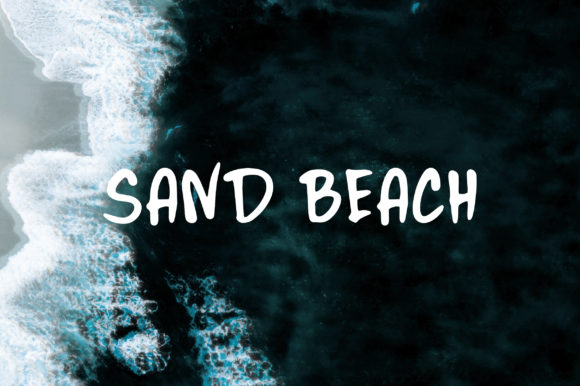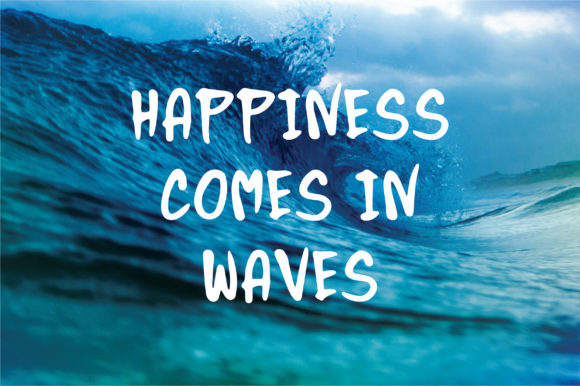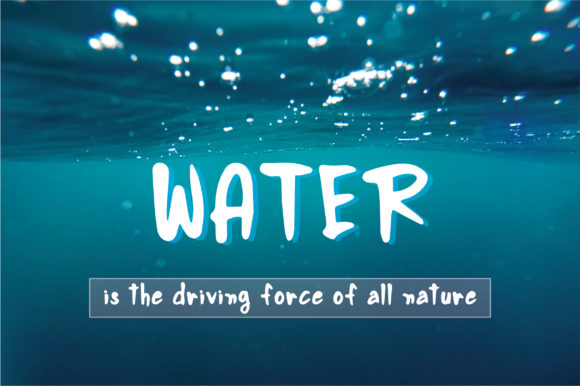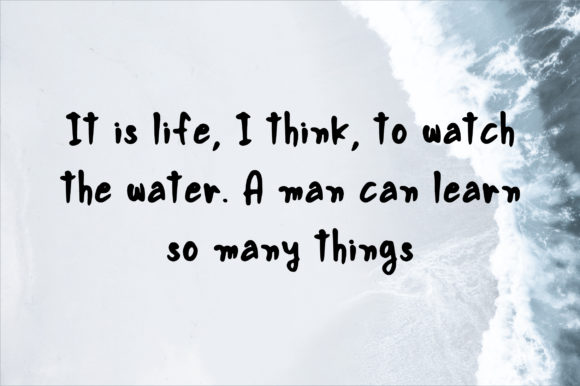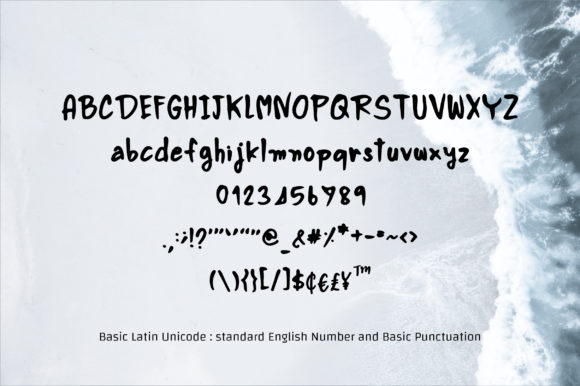
Introduction to Seas the Day Font
Seas the Day is a wonderfully light and charming script font that radiates life.
Get inspired by its unique charm .
Key Features of Seas the Day Font
Why Choose Seas the Day Font?